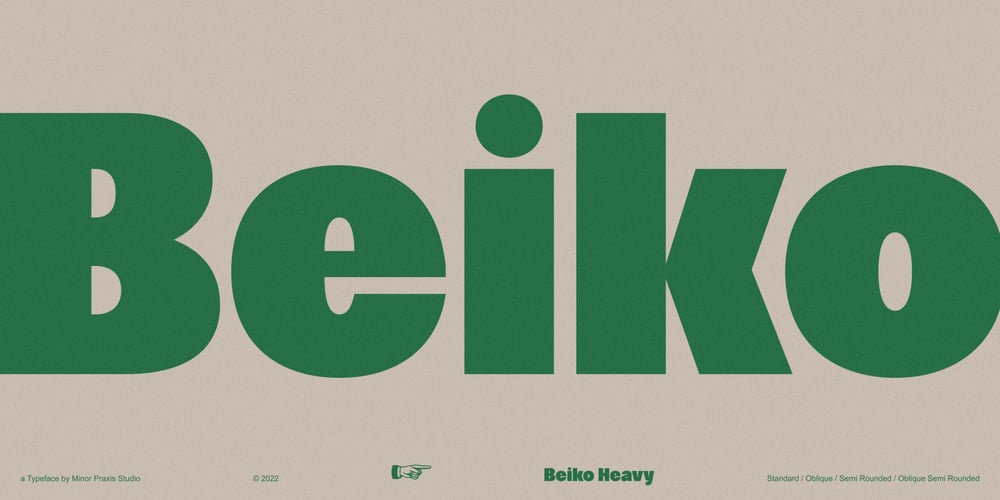
Beiko Heavy Font Family was designed by Rully Prayogi and published by Minor Praxis. Beiko Heavy contains 4 styles and family package options. A heavy font made by Minor Praxis. Inspired by blocks toy design. Ideal use for headlines, medium and large prints format, displays, and posters.Built by a quite heavy structure and dense kern which can make a hefty and solid impression. It can be matched with basic sans serif fonts as a body copy.Available in 4 styles with multi languages support.